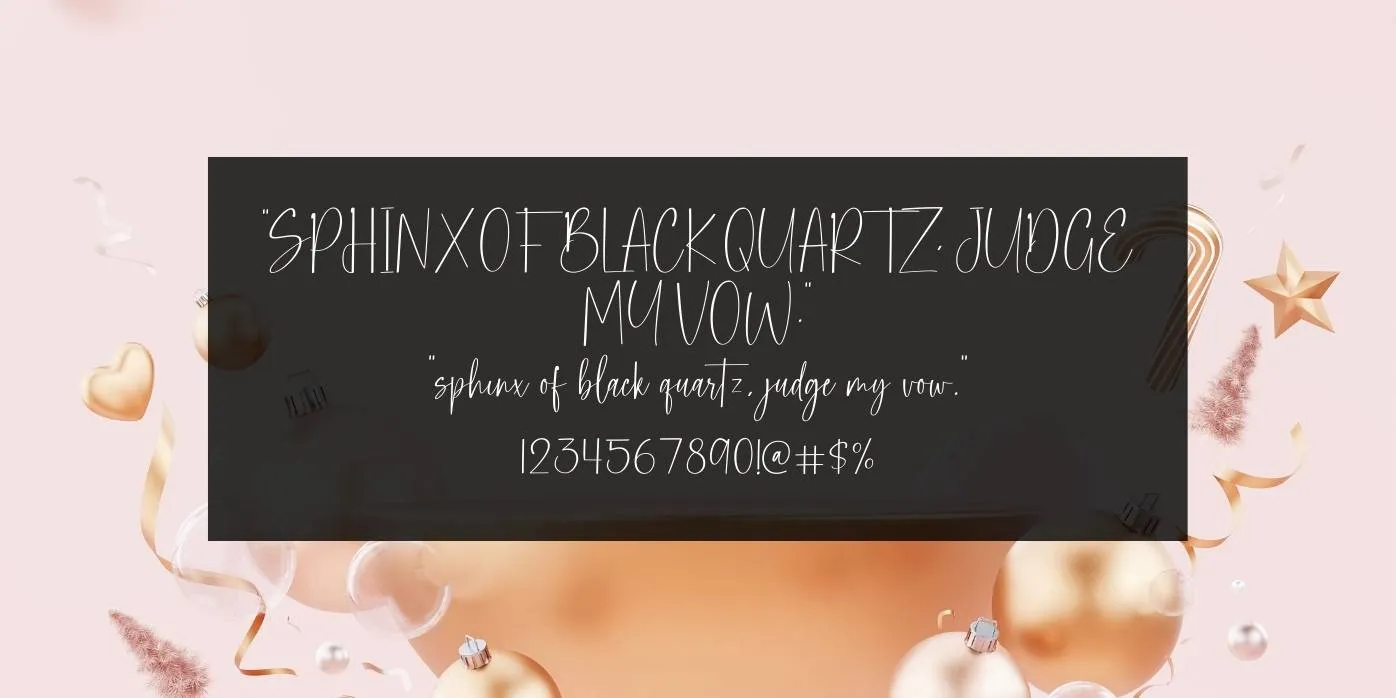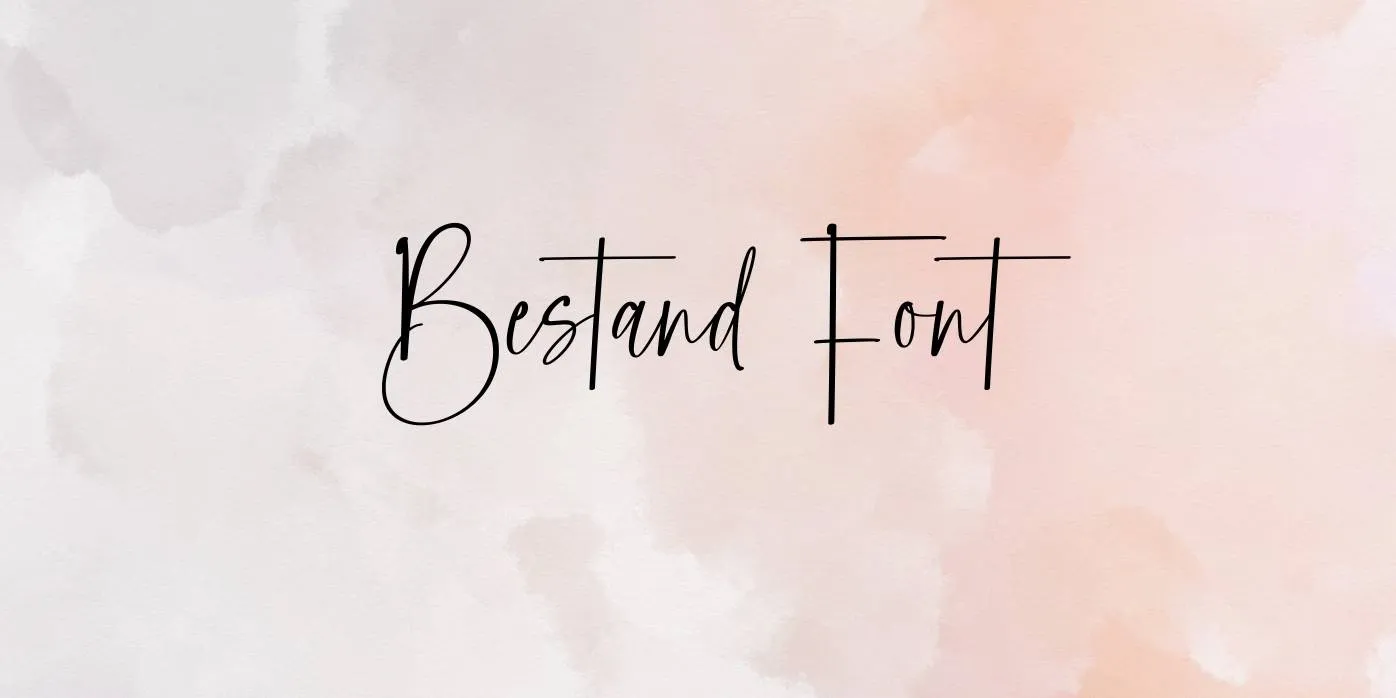
Bestand Font
Today, we are going to Present a stunning typeface that is known by the name Bestand Font. This classy typeface belongs to the Script family. It was developed by Dav Studio. It is well specified by the CSS.
Bestand Typeface was created by accumulating the experience of designing script typefaces for more than ten years. The aim of this font is to create a neutral and balanced typeface that can be used in a wide variety of applications. You can use mission font which has the same style and characters like this one. This font has a very stylish look and feels that make it perfect for use in branding and advertising.
It also has a very strong character that makes it suitable for use in headlines and titles. You can also use this typeface for Adobe. This stunning font is available in two weights, regular and bold. It also includes support for all major languages including Latin, Cyrillic, Greek, and Vietnamese.